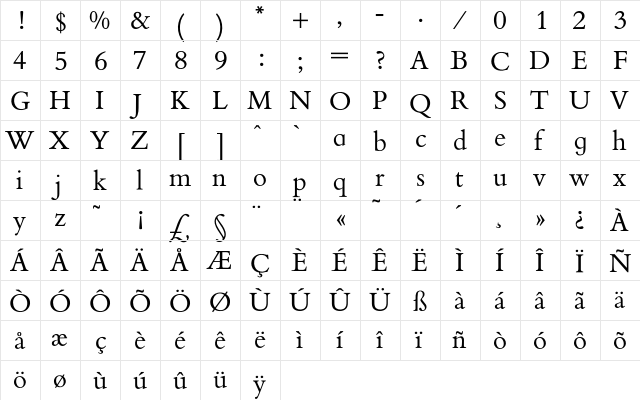
BootsBemboRoman Regular
Design Context for BootsBemboRoman Typeface
BootsBemboRoman takes a measured approach to typography — its balanced proportions and neutral character make it a reliable workhorse for both digital and print work.